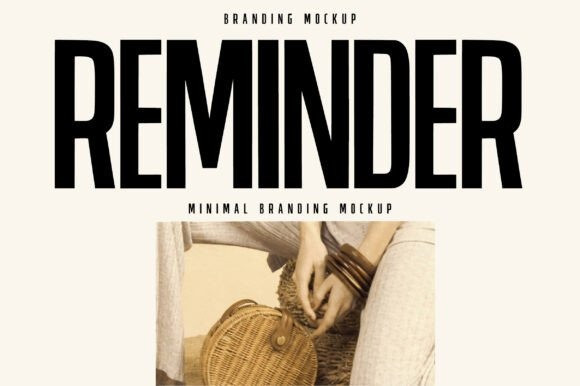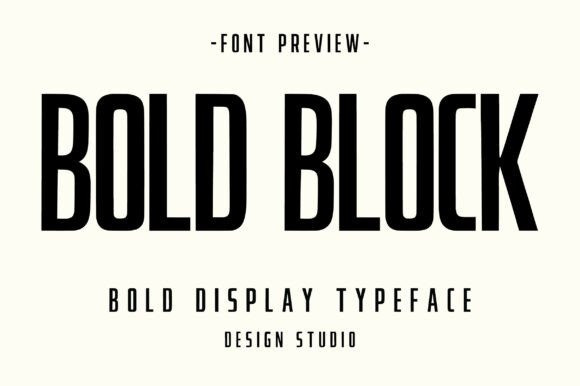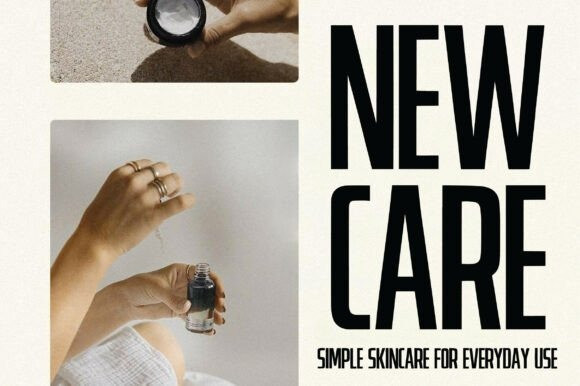
Bold Block Sans Serif Font
Bold Block Sans Serif Font is a bold condensed display typeface with a strong and modern look. Designed for impact, it works perfectly for headlines, branding, posters, logos, packaging, and social media designs.
With tall letterforms and clean shapes, Bold Block adds confidence and clarity to any creative project.